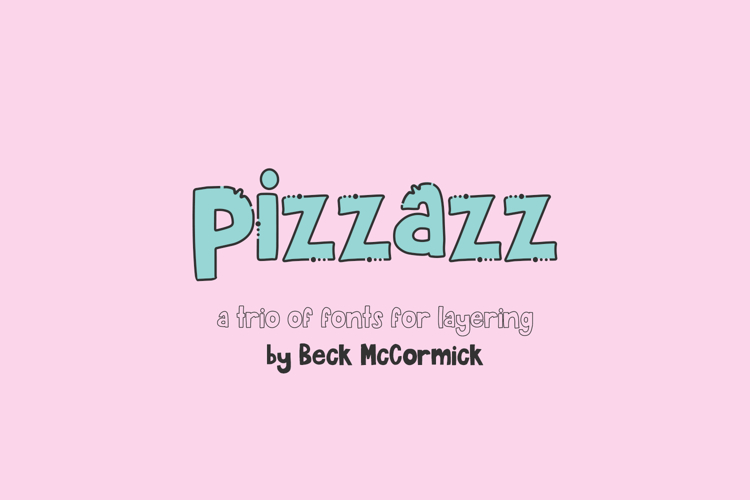
Pizzazz Sans Trio - Fonts for Layering
Pizzazz Sans Trio is a super fun set of fonts! This trio of fonts includes a solid version, an outline version, and a second outline version with a little more pizzazz & playfulness! Use each font on their own, mix & match, or layer them! Pizzazz Sans Trio is perfect for logos & branding, greeting cards, painted banners, digital planners, note-taking apps, Canva, Cricut projects, Silhouette projects, designing SVG files, laser cutting projects, & more.